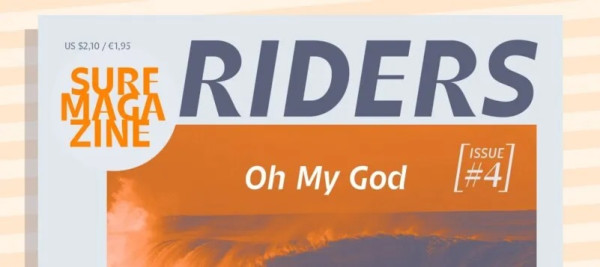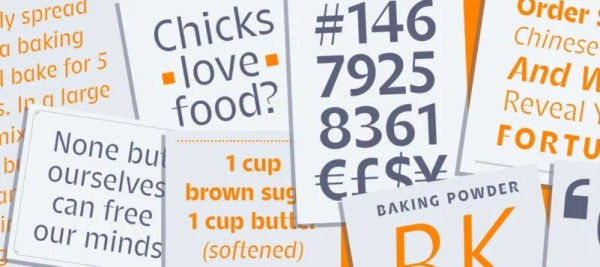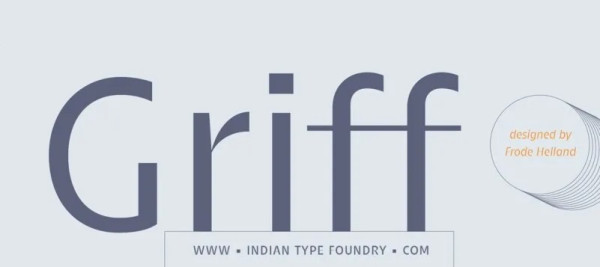
Griff Font
Griff Font is a sans-serif type with a no nonsense feel. It is straightforward and modern. The Griff family includes 10 styles; these are five weights that range from Light through Bold, each with an upright and italic font. The typeface is a bit humanist in style; its strokes end in horizontal or vertical cuts, rather than in diagonals. The letterforms’ counters are also mostly open. The fonts’ x-height is tall, and the lowercase letters’ ascenders rise slightly above the height of the capitals. Speaking of Griff’s capital letters, they are a bit narrower in the feeling than the lowercase. Several of Griff’s letters feature ‘vertical’ line segments that are actually slightly diagonal – in terms of draughtsmanship – which livens up text set with the fonts considerably. It is anything but monotonous. In its upright fonts, the ‘a’ is double-storey, while the ‘g’ is single-storey (both are single-storey in the italics). The lowercase ‘f’ has a descender in the italic fonts, too. The typeface’s diacriticals marks are streamlined in form, and they look very slick. It is the work of Frode Helland, a type designer from Norway. The fonts are best used in larger sizes, where their details can come clearly into view.